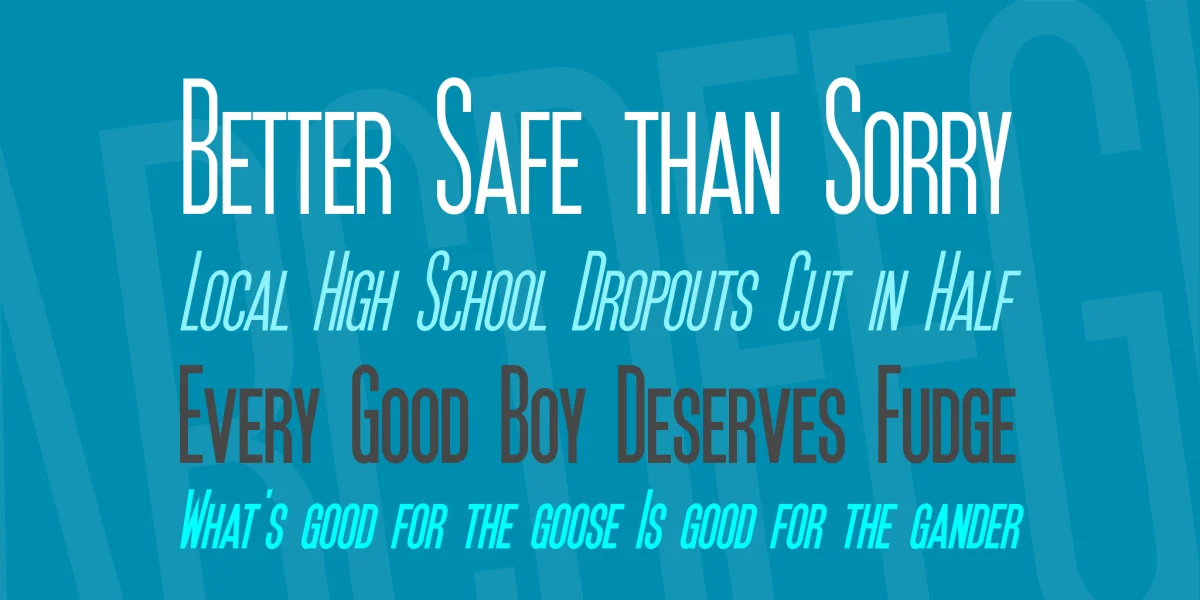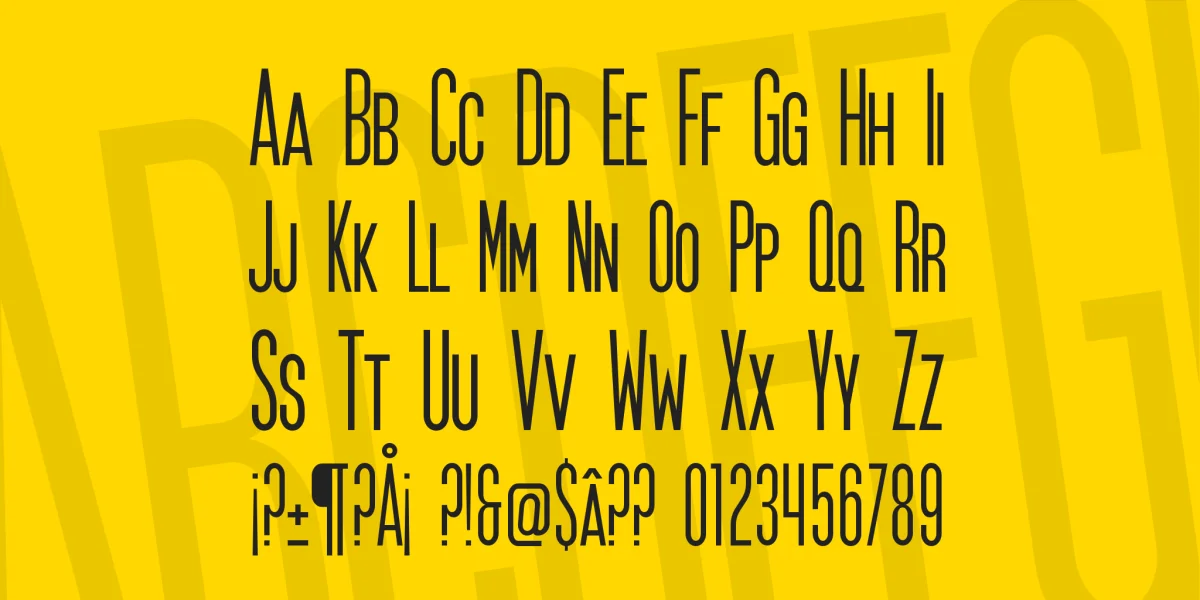
Have you ever wanted to see your name in credits? Well, this is the font for you. SF Movie Poster contains lowercase and uppercase letters, numbers, punctuation, and accented characters.